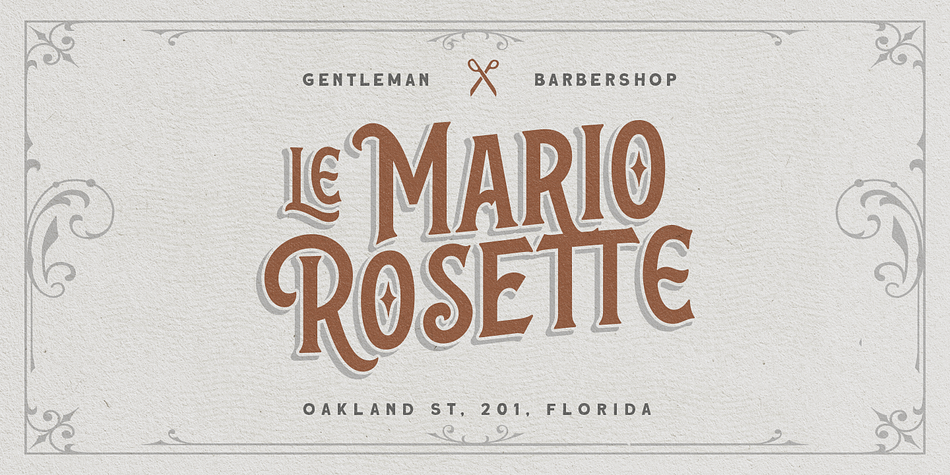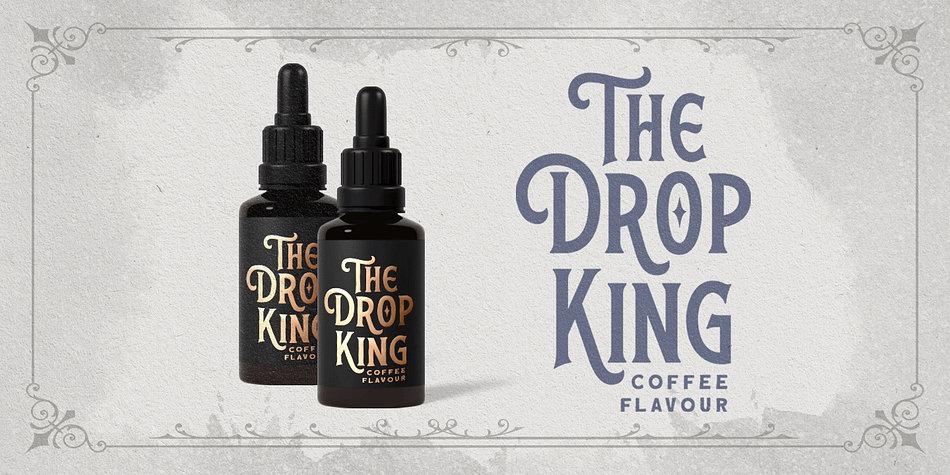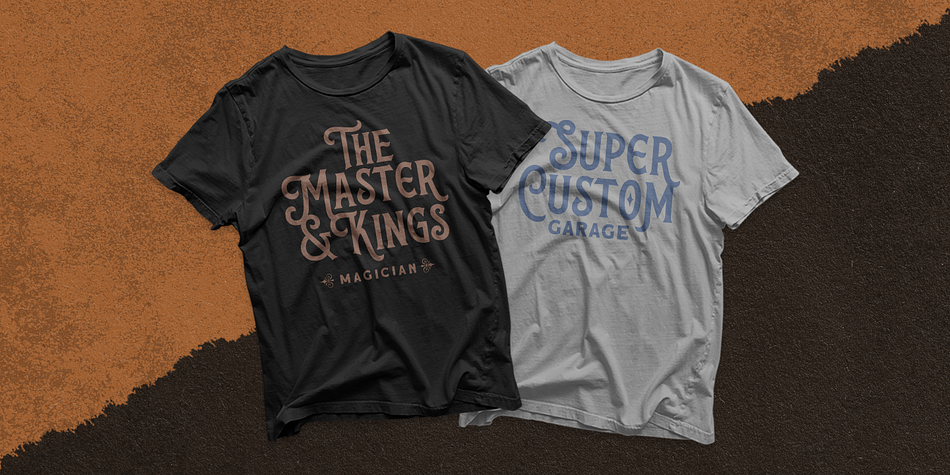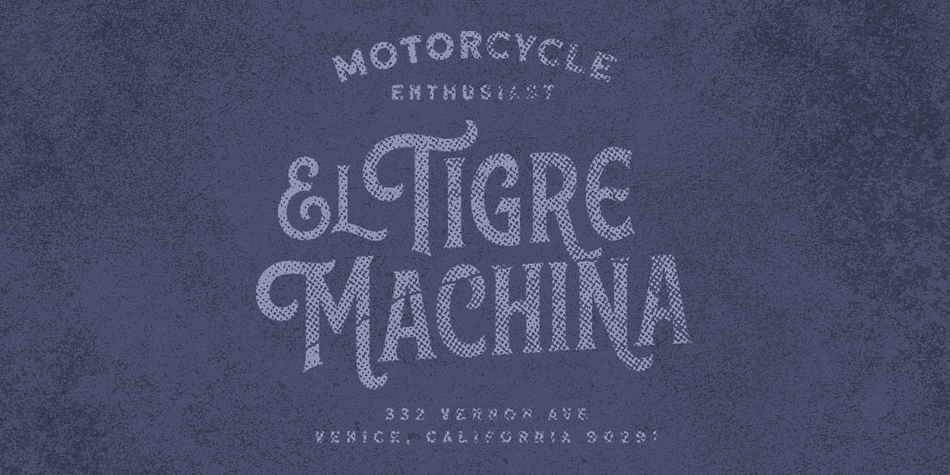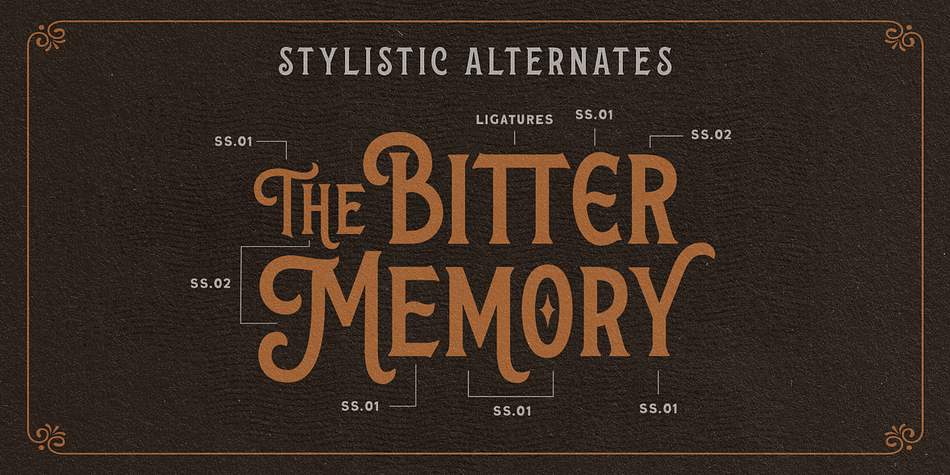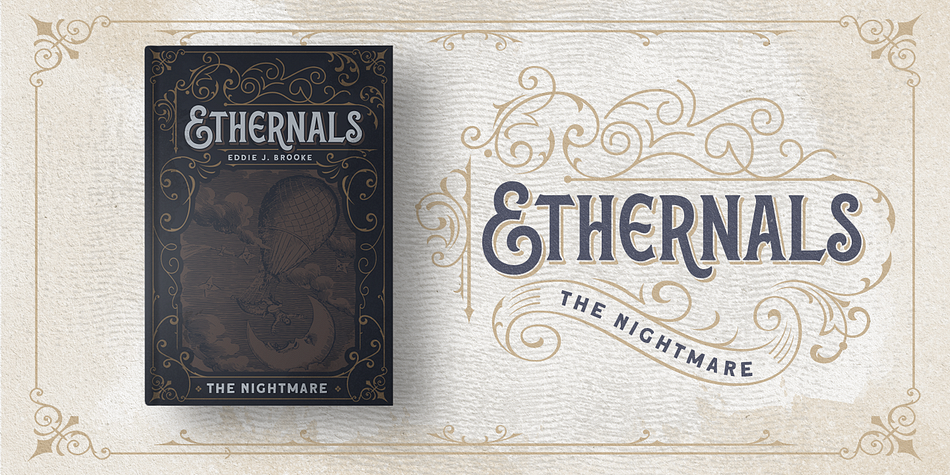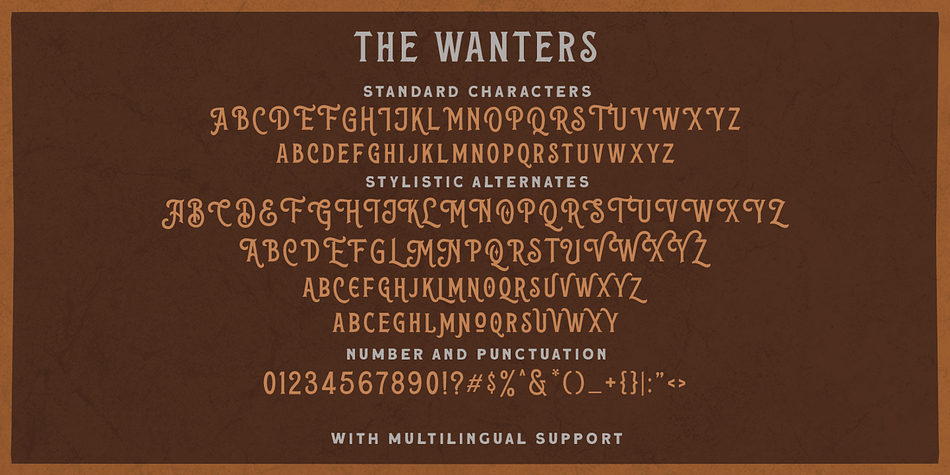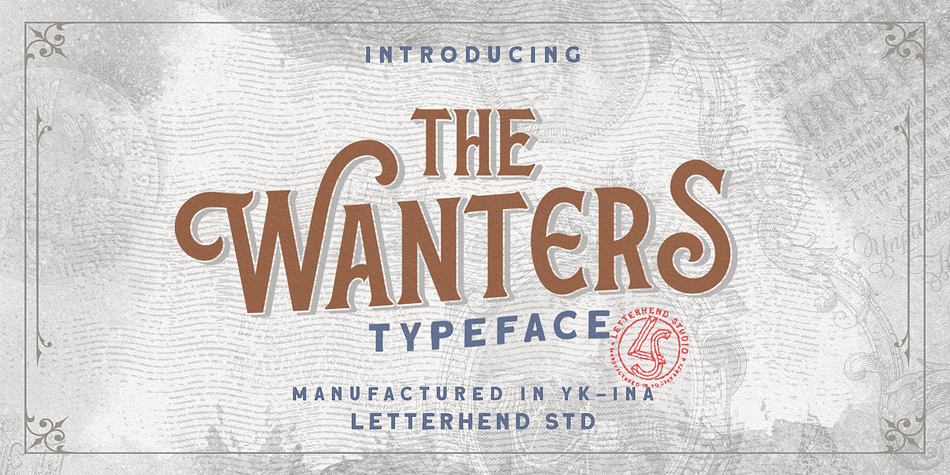
Designed by Hendry Juanda, The Wanters is a display and display serif font published by Letterhend Studio.
Introducing, The Wanters. A vintage display typeface with the touch of nostalgic feel yet still looks luxury in a modern design concept. This typeface has unique looks and strong character with its ornament / swashes. This font perfectly made to be applied especially in logo, and the other various formal forms such as invitations, labels, magazines, books, greeting / wedding cards, packaging, fashion, make up, stationery, novels, labels or any type of advertising purpose.
- Uppercase & lowercase (alternates)
- Stylistic alternates